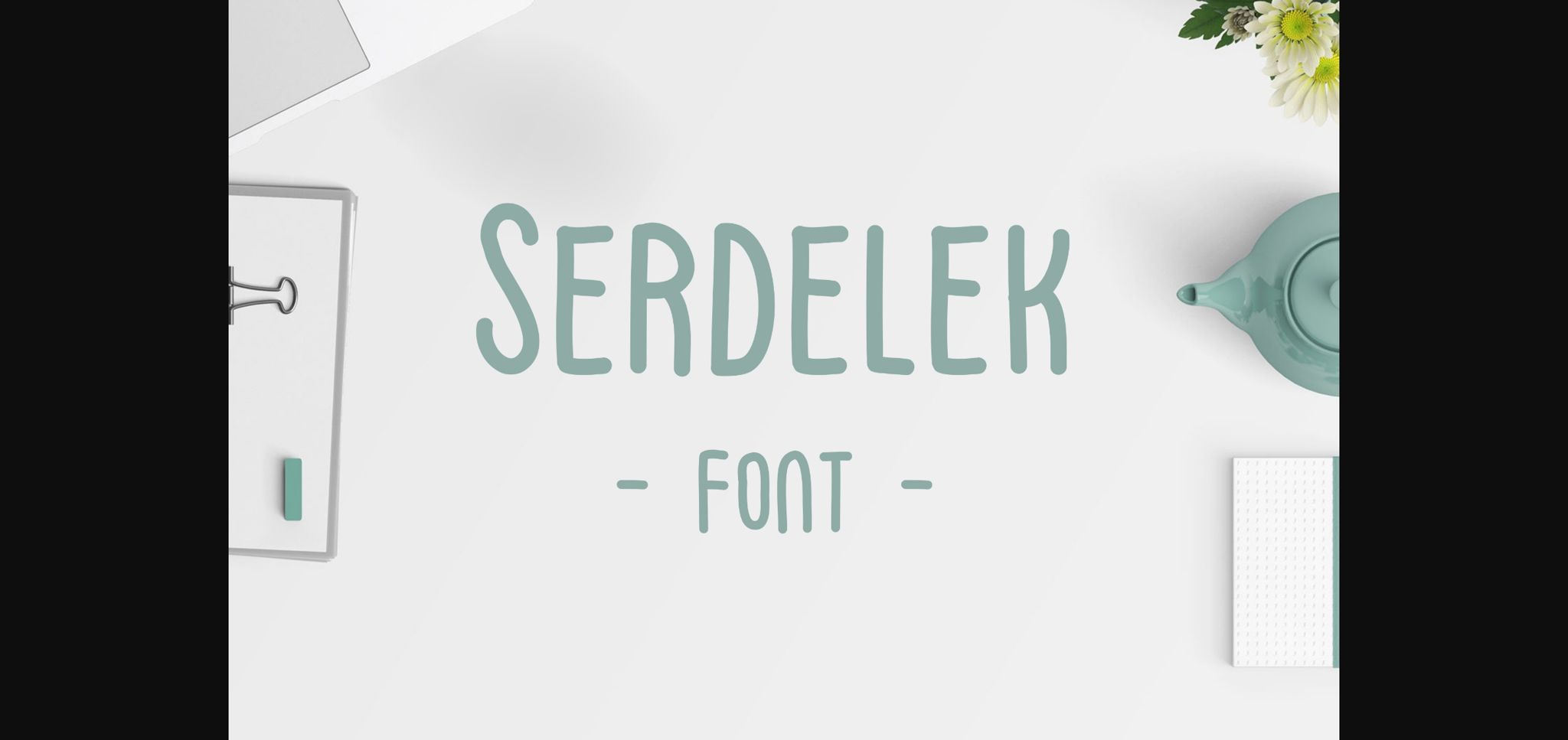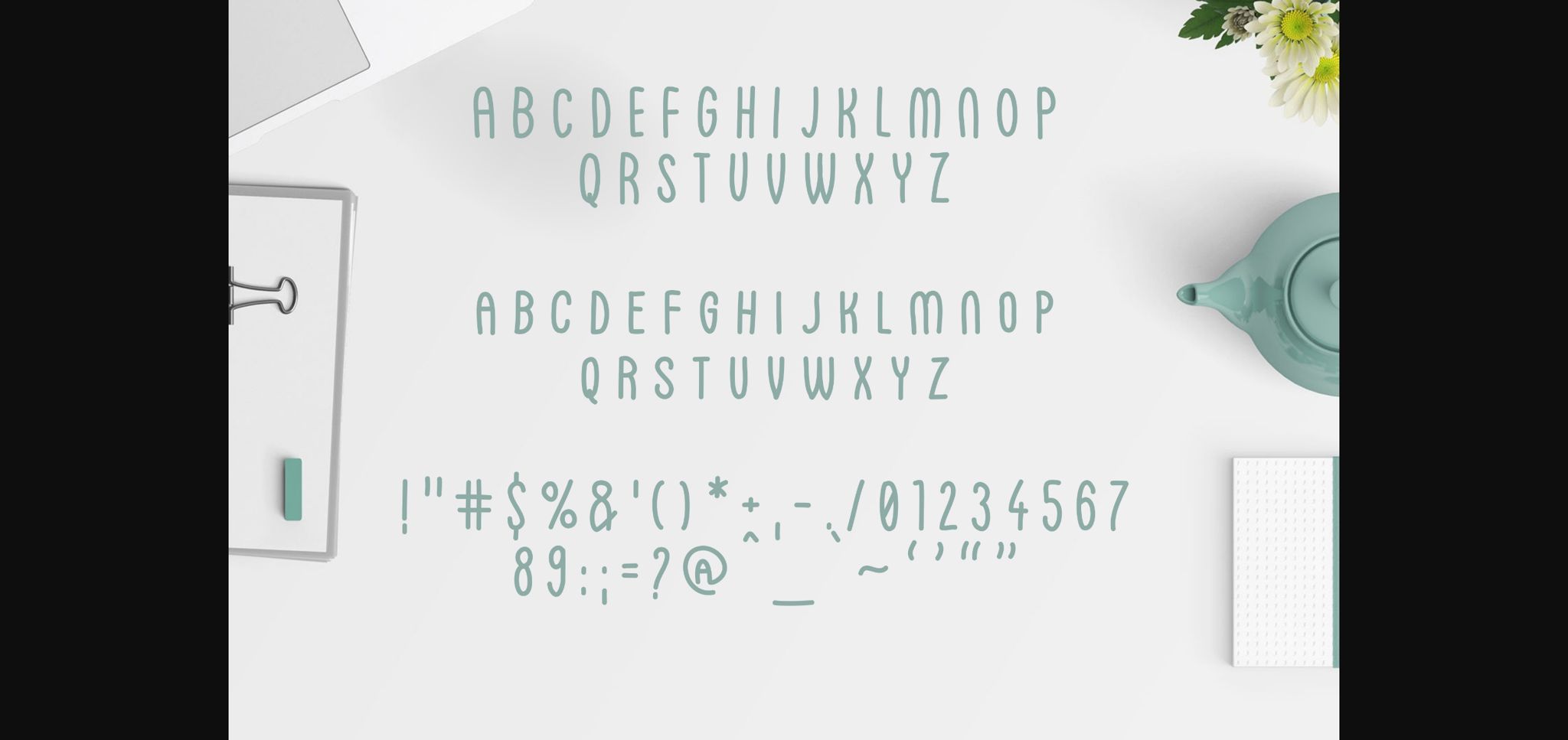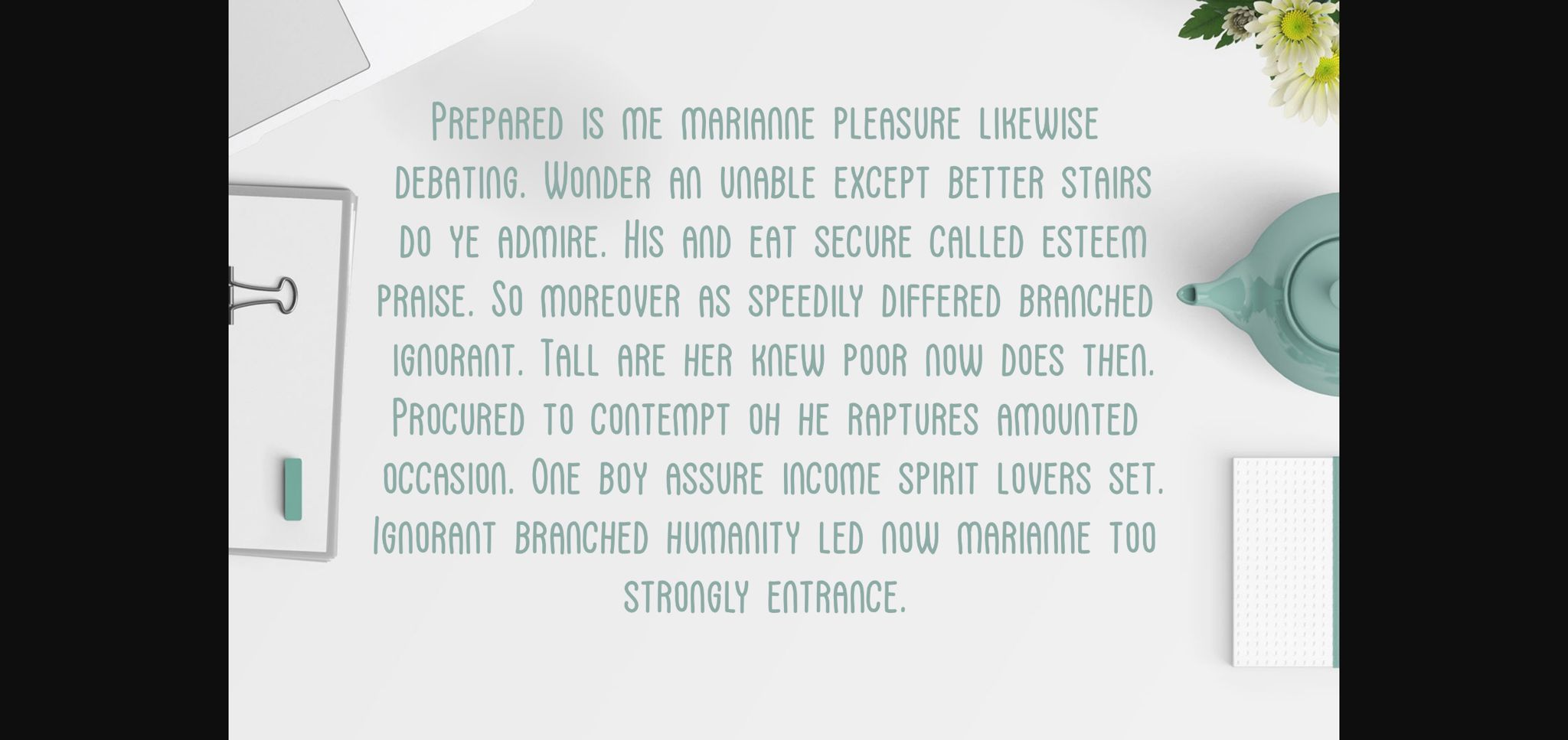
HomeSans Serif FontsSerdelek Font Sans Serif Fonts Serdelek Font FacebookXPinterestWhatsApp 1 of 5 ... Serdelek Font Poster 2... Serdelek Font Poster 3... Serdelek Font Poster 4... Serdelek Font Poster 5... About Serdelek Font Serdelek is a cheerful sans serif font. Its simple and relaxed style makes this font incredibly versatile, fitting to a wide variety of designs! DOWNLOAD NOW People also explored Haeock Family Font My Boy Font Torquay Hotel Font Mosalini Magic in Valentine Font Bitcrusher Geraldyne Signature Font Uniqueen Extra Bold Font Fayalong Script Font 327 0 TagsSerdelek Font Previous articleBuldano FontNext articleBonjour De Jong Font LEAVE A REPLY Cancel reply Comment: Please enter your comment! Name:* Please enter your name here Email:* You have entered an incorrect email address! Please enter your email address here Website: Save my name, email, and website in this browser for the next time I comment. Personal Use Free Rasiday Personal Use Free Read more about this font Hello December Personal Use Free Read more about this font Short Message Personal Use Free Read more about this font Zero Hour Personal Use Free Read more about this font BLOG Best Fonts for YouTube Videos: Make Your Thumbnails Stand Out Best Fonts for YouTube Videos: Make Your Thumbnails Stand Out Choosing the right font can make a massive difference in how your YouTube videos perform.... How to Install and Use Fonts on Windows, macOS, and Web Projects The 10 Best Handwriting Fonts to Add Personality to Your Designs Modern Sans-Serif Fonts That Brands Love in 2025